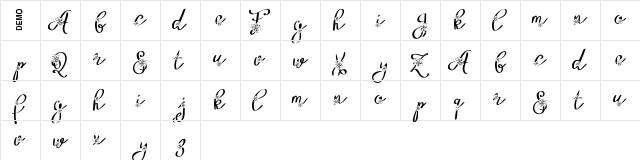
Floryfic Demo Free Font
Floryfic Demo
Style: Demo
Design Context for Floryfic
Floryfic is a composed and adaptable typeface that performs quietly and consistently across a wide range of design contexts.